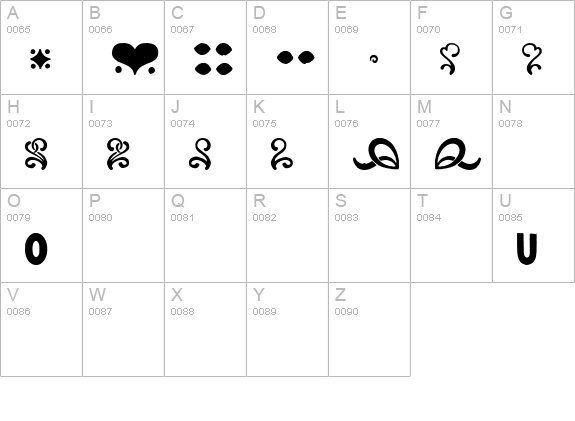
CanCan de Bois Font Details
CanCan de Bois is a stylish and elegant font that exudes sophistication and charm. With its delicate curves and intricate details, this font is perfect for adding a touch of class to any design project. The graceful letterforms of CanCan de Bois are sure to captivate and inspire. The best part? CanCan de Bois is available for free download at FontsMarket.com, making it easily accessible to designers and creatives looking to enhance their work with a touch of luxury. Whether you're designing a wedding invitation, crafting a logo, or creating a stunning poster, CanCan de Bois is the perfect choice for adding a touch of elegance to your designs. Download CanCan de Bois today and elevate your projects with this exquisite font that is sure to make a lasting impression.